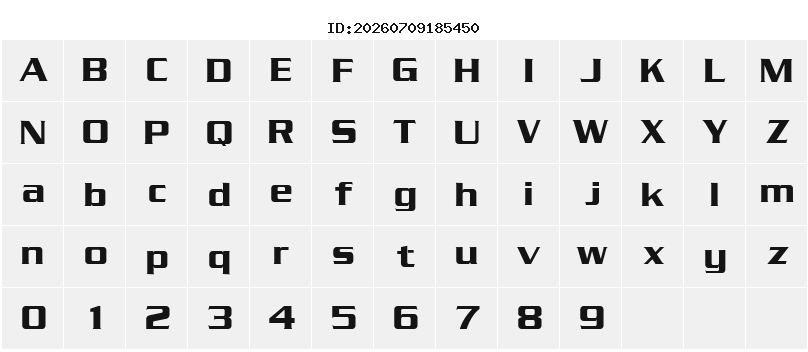
DG_Serpentine Preview
• Font Name: DG_Serpentine
• Font ID: Alts:DG_Serpentine
• Full Font Name: DG_Serpentine
• Version: 1.0 Thu Jun 17 18:52:40 1993
• PostScript Name: DG_Serpentine
About DG_Serpentine.ttf
DG_Serpentine.ttf is a modern, elegant sans-serif font designed for ultimate readability and visual harmony. Perfect for branding, headlines, web design, and print materials.